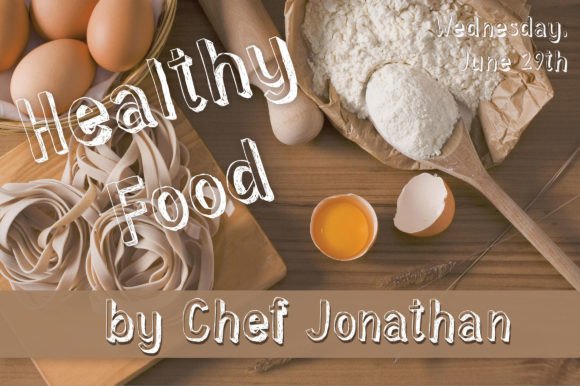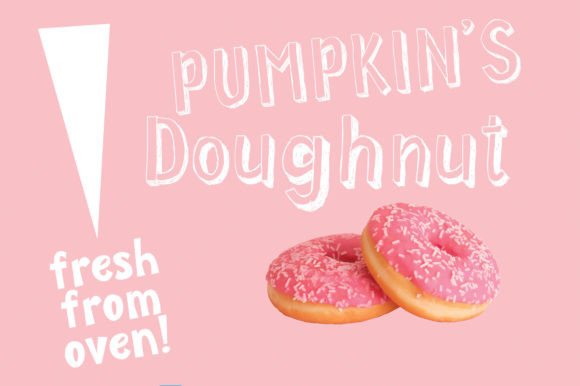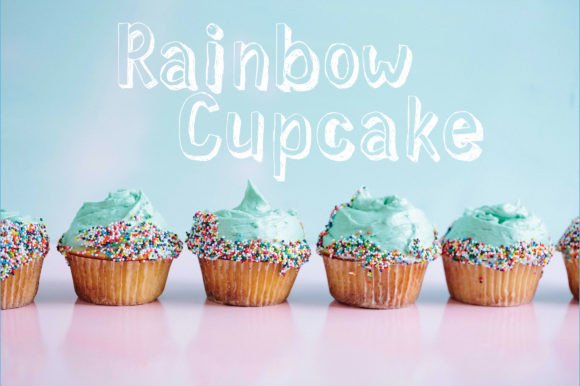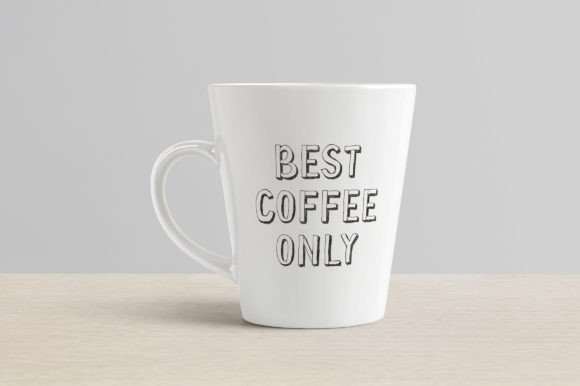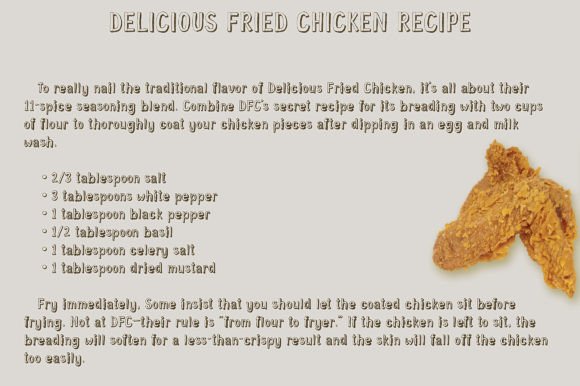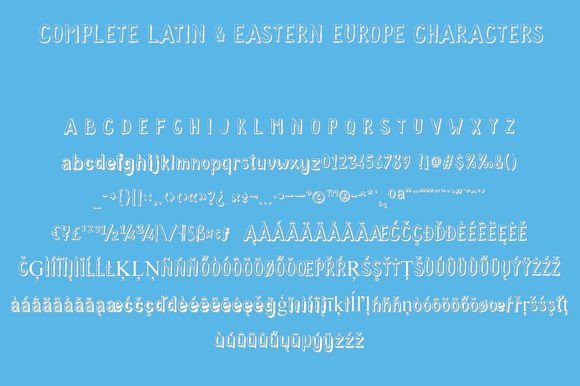
Introduction to Kampretos Font
Introducing a new fun display font with a sketch style, Kampretos.
This font has a 3D effect or extrude effect, but is drawn in cartoon style This font will be nice to give a cute theme to your books, magazine, flyer, YouTube thumbnail, etc.